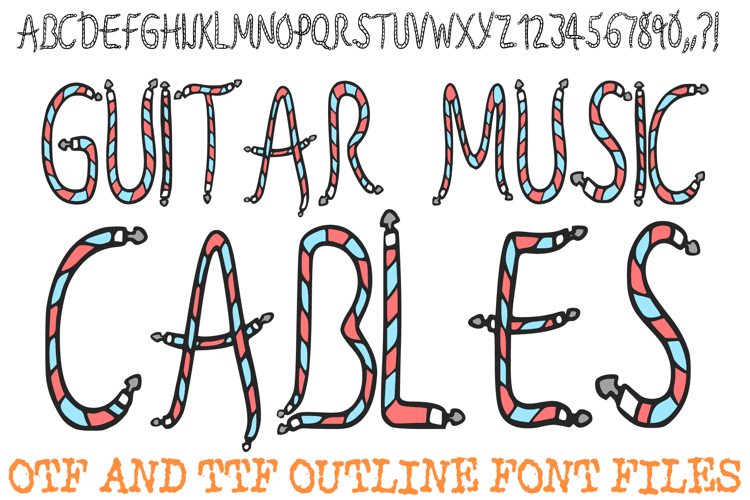
Amp up your designs with the Guitar Music Cables Font! This electrifying display typeface transforms every letter and number into flexible, hand-drawn instrument cables, complete with realistic jack connectors at the ends. It is the ultimate choice for band posters, music festival branding, recording studio logos, or any project that needs a rock-and-roll edge.
Each character features a classic "striped" woven cable texture in vibrant red, light blue, and white, giving your text a high-energy, retro aesthetic. Whether you are designing merchandise for a guitarist, creating social media content for a music blog, or making fun stickers for a rehearsal space, this font perfectly captures the "plug-and-play" spirit of live music.
Authentic Musical Detail: Every letter (A-Z) and number (0-9) is shaped like a patch cable with detailed silver jack heads.